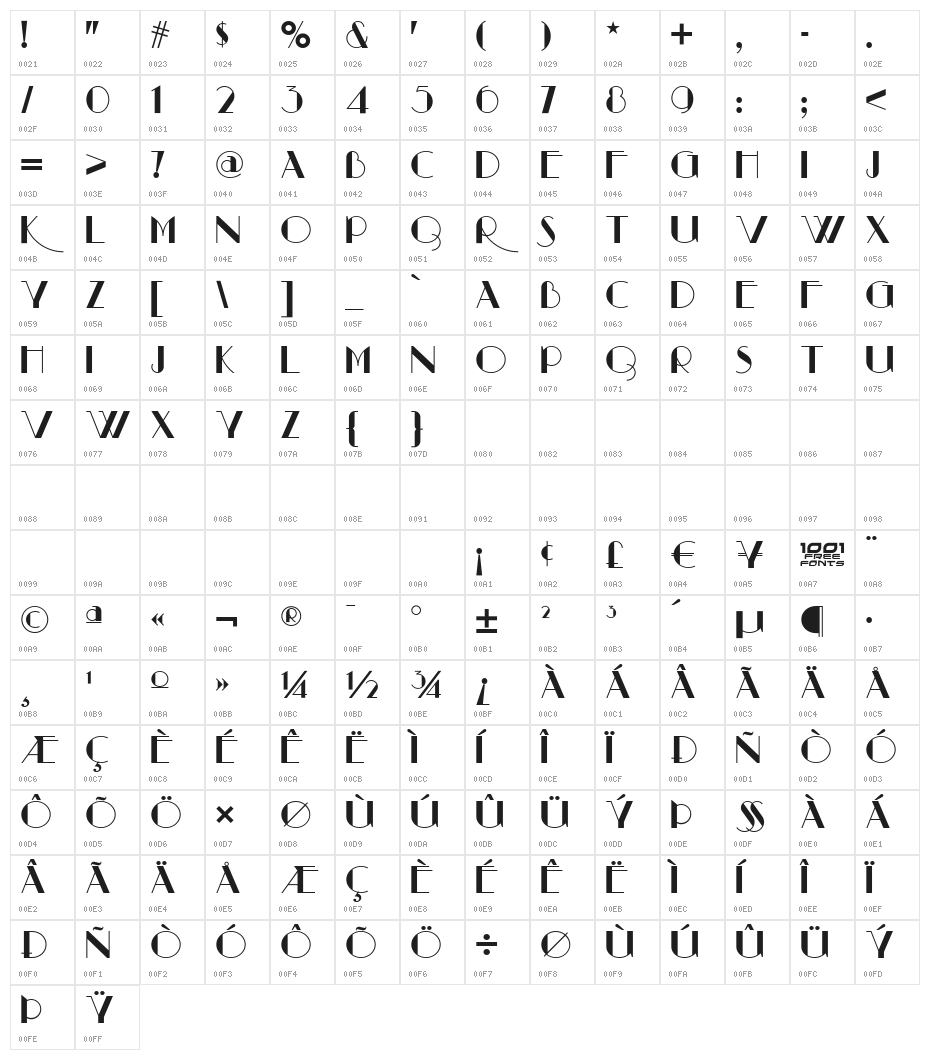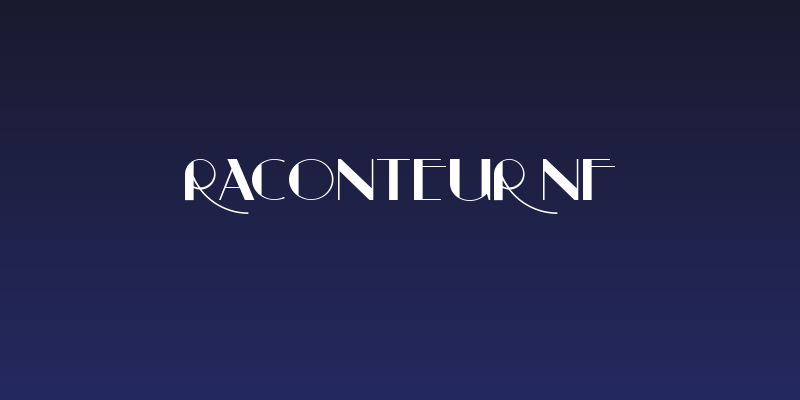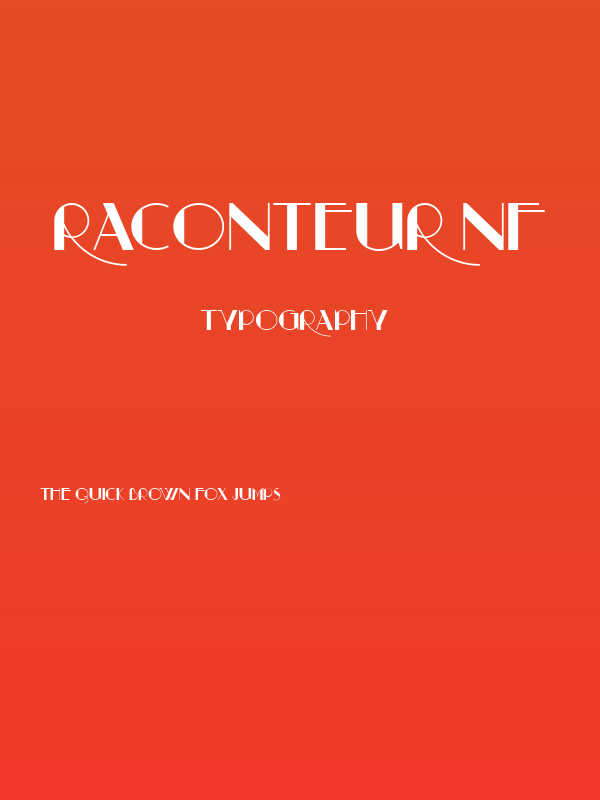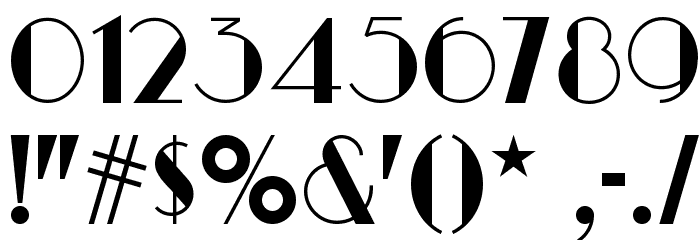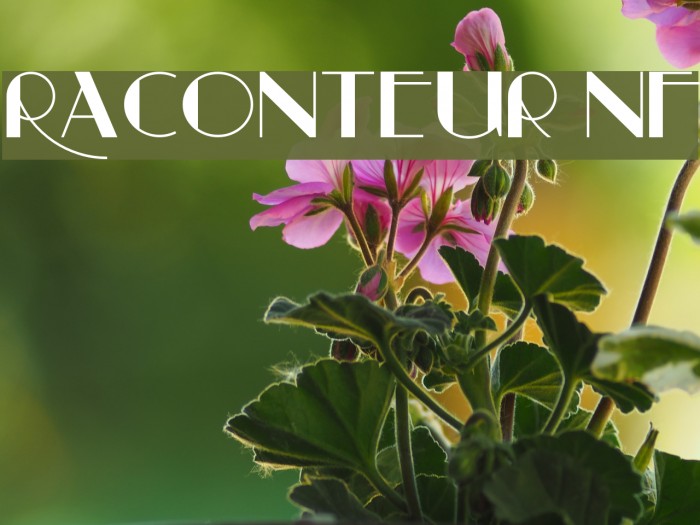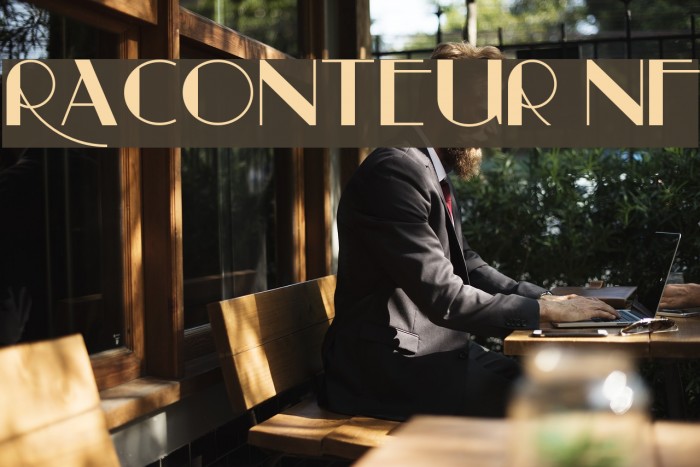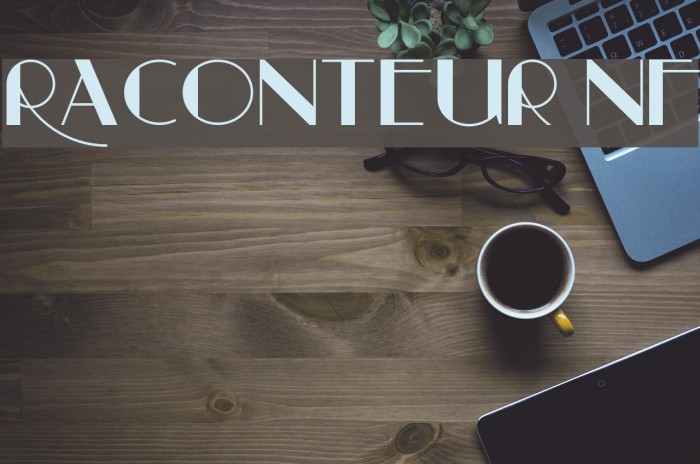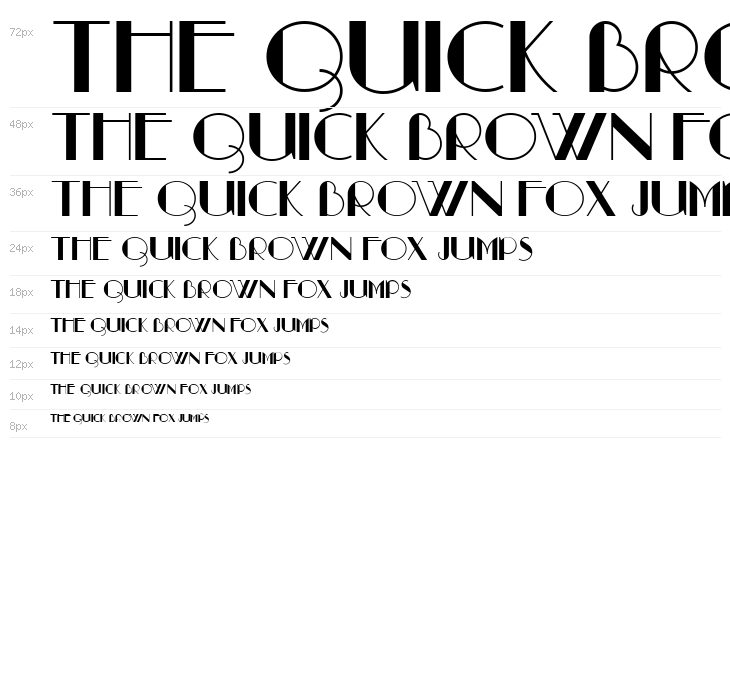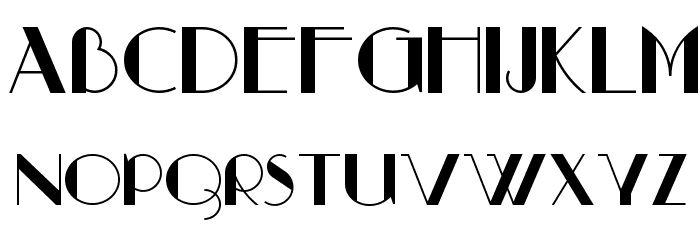
Raconteur NF Font
Raconteur NF Description
This font features a unique blend of Art Deco and modern design elements, characterized by its geometric shapes and elegant curves. The uppercase letters showcase a bold presence with distinct angular cuts and smooth arcs, creating a sense of sophistication and style. The lowercase letters maintain a consistent design language, offering a harmonious balance between the characters. The numerals are crafted with a similar aesthetic, ensuring uniformity across the typeface. Special characters are thoughtfully integrated, adding versatility to the font's application. Overall, this typeface exudes a sense of luxury and refinement, making it ideal for projects that require a touch of elegance and class.
| Proposed Projects | Ideal for luxury branding, high-end product packaging, editorial design, and event invitations. |